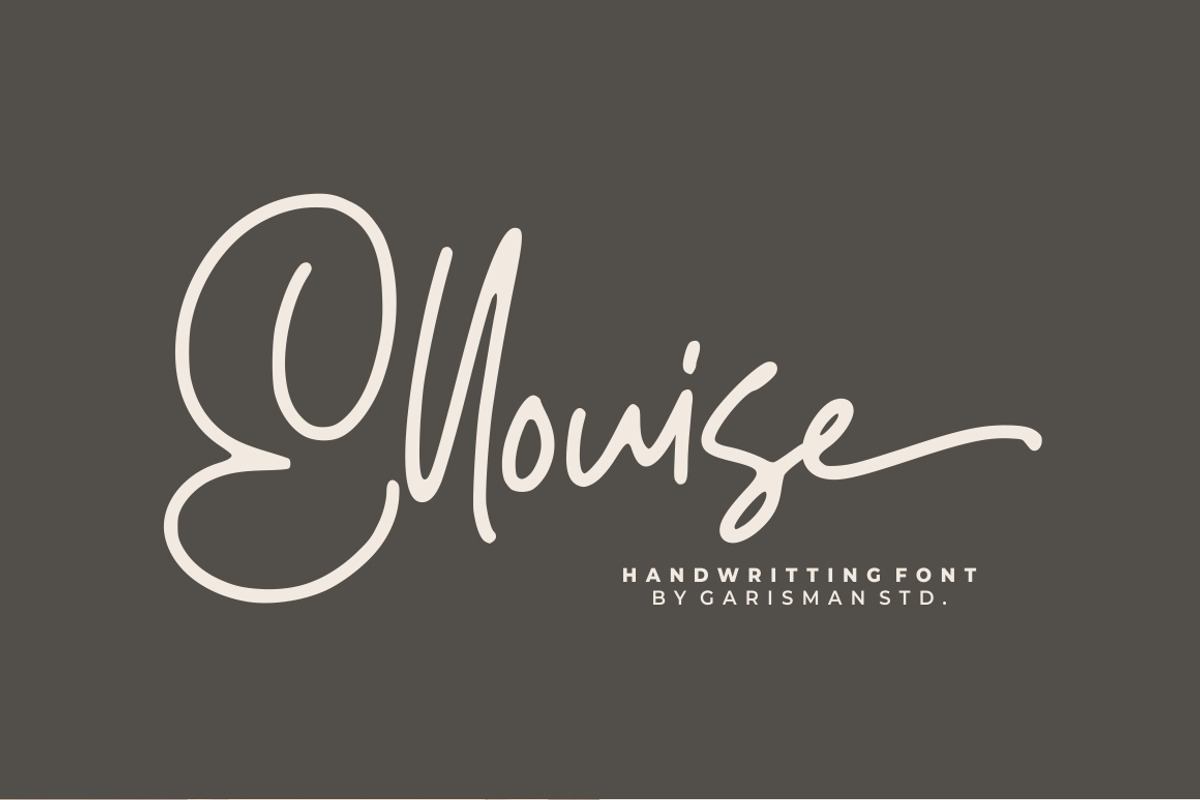
Ellouise - Handwriting Font Free Download is a graceful and charming script typeface that captures the natural beauty of handwritten notes. With its flowing curves, delicate loops, and personal touch, Ellouise is perfect for wedding invitations, lifestyle branding, journaling, heartfelt quotes, and social media content that calls for warmth and elegance.
This font blends sophistication with authenticity, offering stylish ligatures and smooth strokes that give every design a handcrafted feel. Whether you're creating printed materials or digital visuals, Ellouise adds a soft, romantic vibe that feels intimate and refined.